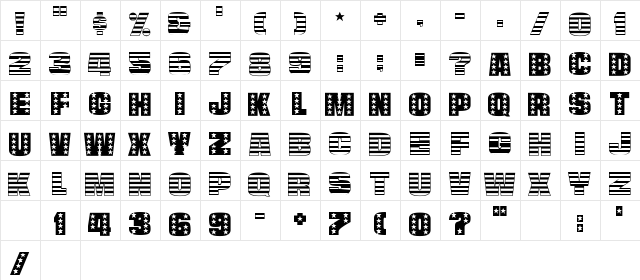
StarsAndStripes-Plain Regular
Design Context for StarsAndStripes-Plain Typeface
StarsAndStripes-Plain is a composed and adaptable typeface that performs quietly and consistently across a wide range of design contexts.